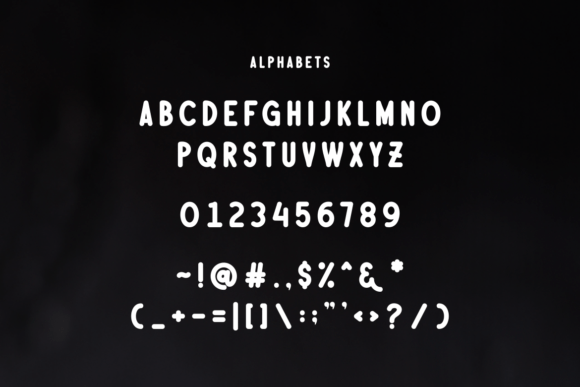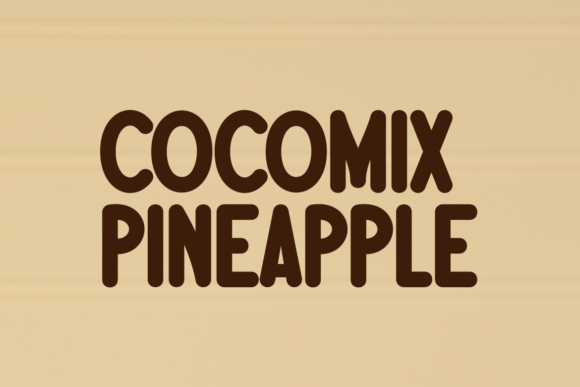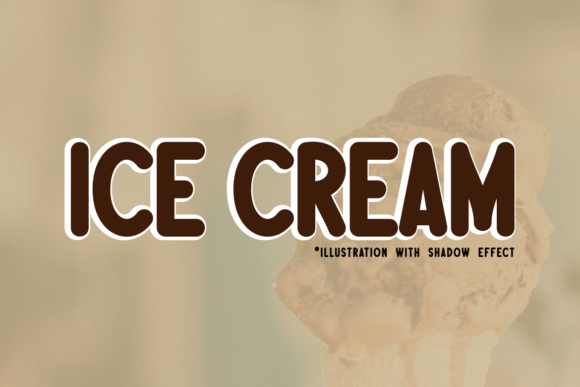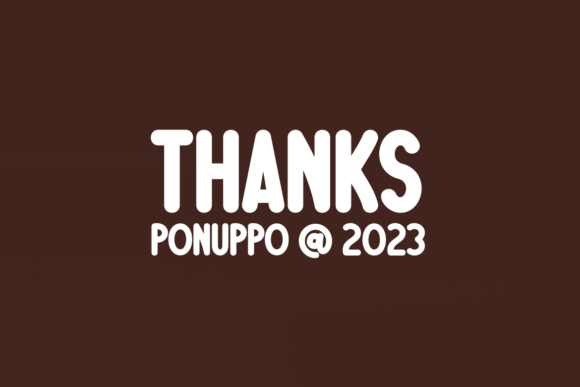
The Perfect Recipe for Readability: Introducing the Bincotan Font
Have you ever stared at a wall of text, struggling to decipher the fine print? We’ve all been there, right? But what if I told you that there’s a secret ingredient to making your content stand out and easy to read? Enter the Bincotan Font, a game-changing typeface that’s specifically designed to make your words shine.
With its thicker lines and sans-inspired elegance, the Bincotan Font is the perfect companion for writing product descriptions, from mouth-watering food to refreshing beverages. Whether you’re a seasoned designer or a budding creative, this font is a valuable addition to your toolkit, allowing you to craft engaging content that resonates with your audience.
Bincotan Font Key Features
- Font Family: Bincotan Font is a sans-serif font family designed for optimal readability and modern aesthetics.
- Character Set: Supports a wide range of languages, including Latin, Cyrillic, and Greek alphabets, making it suitable for international typography.
- Font Size and Resolution: Designed for use at various sizes, from 8pt to 24pt, and supports resolutions up to 1200 dpi, ensuring crisp and clear text output.
- Unique Characteristics: Features a distinctive rounded design with subtle curves, creating a friendly and approachable tone, ideal for user interfaces, signage, and body text.
- Font Pairing: Bincotan Font is designed to work well with a variety of font families, making it an excellent choice for creating harmonious and balanced typography.
Bincotan Font Review
Overall, I was pleasantly surprised by the Bincotan Font. The designers have done a great job of creating a unique and visually appealing typeface. ✨
- The font’s bold and elegant feel makes it perfect for headings and titles.
- The range of weights and styles available gives users a lot of flexibility when it comes to choosing the right font for their project.
- The font is highly legible, even at small font sizes.
- The font may not be suitable for large blocks of text, as it can become visually overwhelming.
- The font is not optimized for screen reading, which may make it difficult for users with visual impairments to read.
Overall, I think the Bincotan Font is a great addition to any designer’s toolkit. While it has its limitations, the unique feel and flexibility it offers make it a great choice for certain projects.